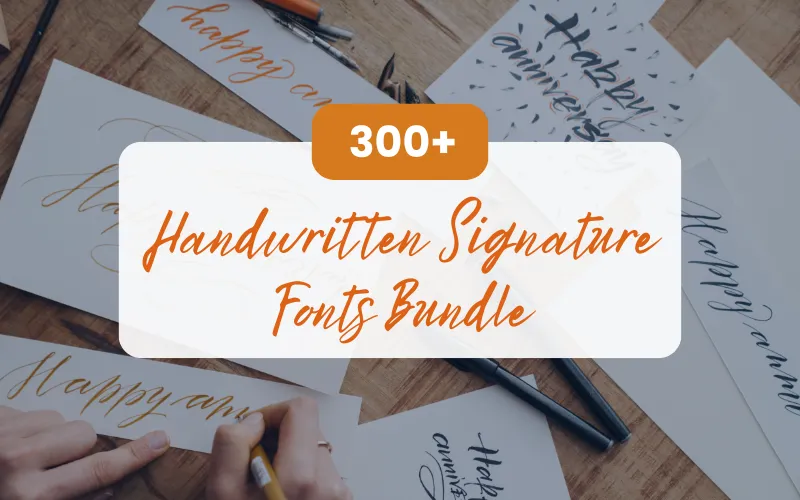
Style your projects with fonts that flow like ink on paper — authentic, artistic, and timeless. DealFuel presents:
Handwritten Signature Fonts Bundle
A curated collection of 369 handwritten signature fonts (738 files total) in OTF & TTF formats. This bundle includes popular script, brush, and calligraphy styles, plus a variety of brush, texture, vintage, and retro fonts.
- Categories: Script, Brush, Calligraphy
- Font types: Brush, Texture, Vintage, Retro
- Includes alternates & ligatures
Selected fonts in this bundle
- Authentyc Rustyc
- Author Firtual
- Aydin Juelz
- Bailandho
- Bailando Antom
- BailAndo Shreet
- Cora Madeline
- Cosmo Edmund
- Cuthbert Drew
- Daisy Raelynn
- Dallin Harrison
- European Joy
- Eva Juniper
- Evelyn Luba
- Faboulous Alpha
- Faizan
- Falenthina Almorte
- Grayshon Thor
- Gymnastic Eurhope
- Hadley Alaia
- Hadwin Maverick
- Haky Shitape
- Isabelle Juliette
- Isla Eliana
- Jack Malik
- Jackson Landon
- JacksonDilan
- Khian Chooper
- Kourtney Kardash
- Lance Harley
- Lasthegar
- Leilani Addison
- Leonardo Luca
- Levander
- Michael Owen
- Michiko Ajeng
- Mikey Tony
- Natalia Ariana
- Natalie Josephine
- Navajo Kai
- Nehemiah Edgar
- Often Associated
- Olga Giselle
- Oscar Alma
- Ovie Sacha
- Parker Julia
- Peaky Blinders
- Petrica Raphoto
- Philadelpia Font
- Philip Griffin
- Putri Ryoko
- Quinn Aaliyah
- Rahmi Yagom
- Rasty Maniac
- Rebeca Ghail
- Reese Wrenley
- ReghanTaron
- Scottish Barrel
- Shaila Mashel
- Shaylin Jillian
- Shepherd Franklin
- Shouthamton
- Siloh Viktor
- Travis Ciharge
- Trent Uzair
- TristanValerio
- Tyrese Rileynd
- Valente Thiago
- Valentino Aden
- Willem Graciano
- William Batch
- Willow Emilia
- Young Faine
- Yusha Antony
- Zayden Coridan
- Zilitha Phily
- Zilitha Phily (duplicate entry)